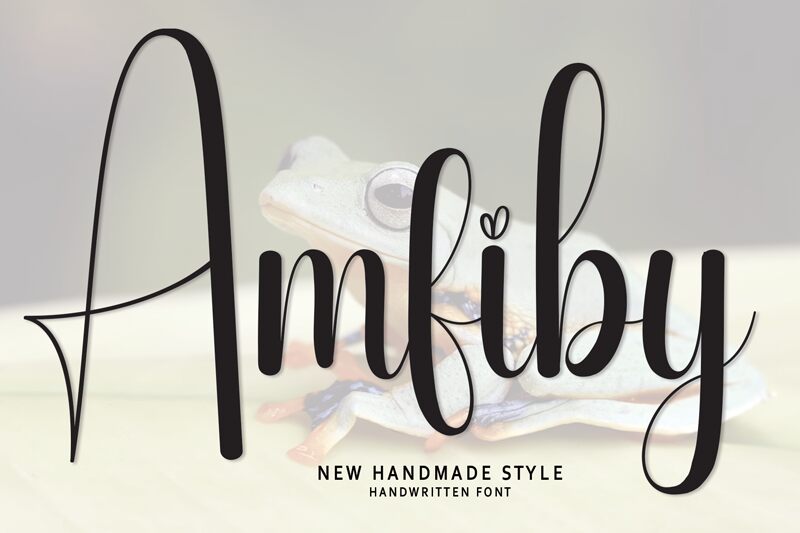
Amfiby
Amfiby font by Scratchones is a condensed calligraphy font with an elegant, flowing, and decorative style. Amfiby is highly romantic and whimsical combining several exciting elements that allow it to look exceptional when added to any design. The free calligraphy font may rightfully take its position as the main headline, but it could also wonderfully be combined with others for exciting results.
Calligraphy fonts have always been part of sophisticated projects which became possible in theatre brochures, wedding invites, crafts magazine covers, and featured decorative texts. Artwork captions or simple posters for a retail store opening or romantic bistro event can be easily pulled off using this resource.